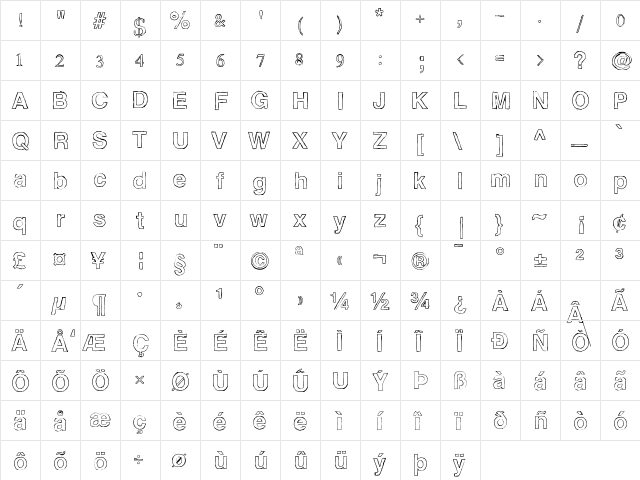
PamplonaScribble Medium
Design Context for PamplonaScribble Typeface
PamplonaScribble takes a measured approach to typography — its balanced proportions and neutral character make it a reliable workhorse for both digital and print work.